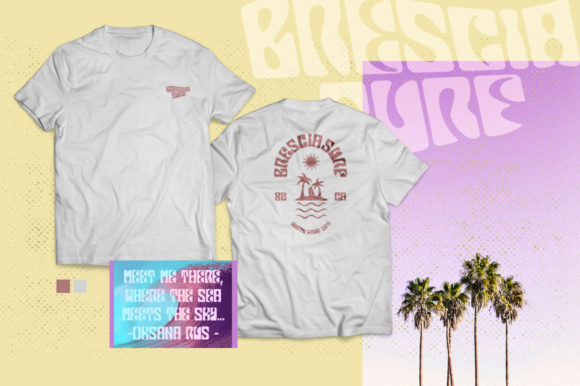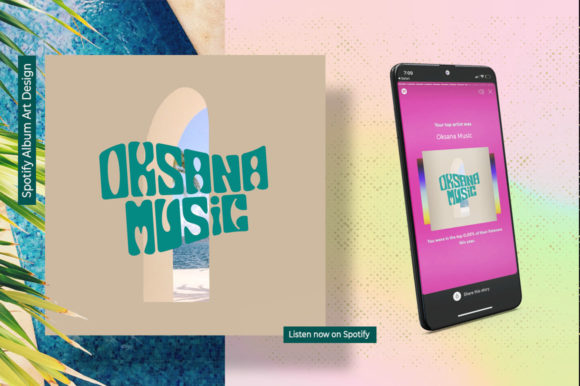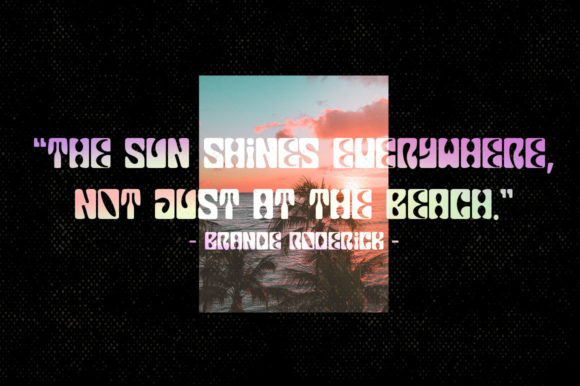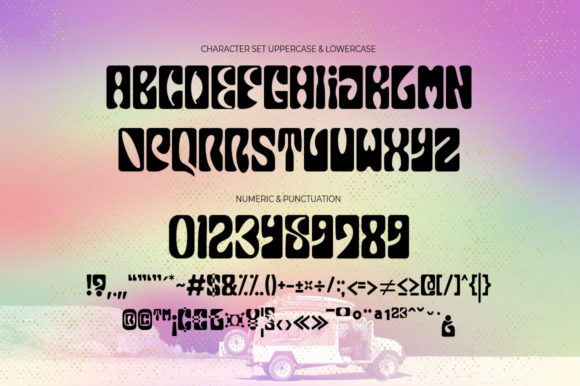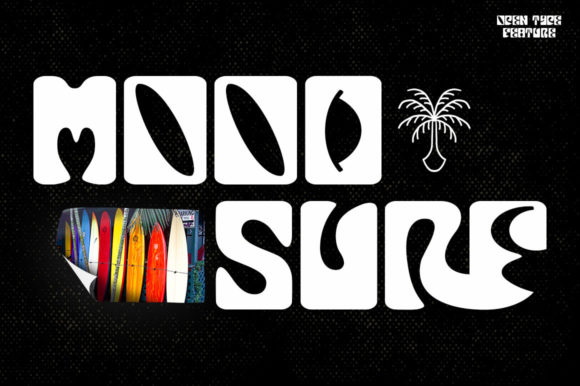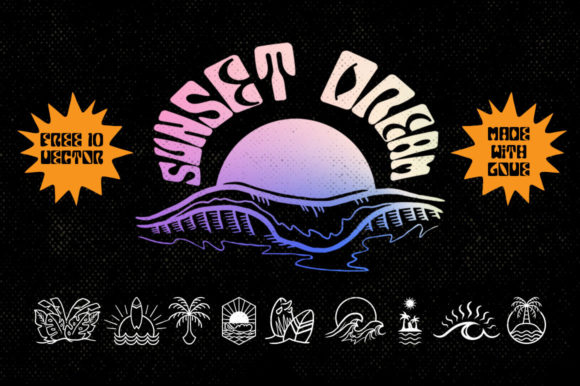
Brescia Font: Add a Touch of Whimsy to Your Designs
In the world of typography, fonts play a crucial role in conveying the tone and personality of a design. If you’re looking for a font that can add a distinct touch to your creations, look no further than Brescia Font. This whimsical, uniquely designed display font is perfect for designers and crafters who want to make their work stand out.
What is Brescia Font?
Brescia Font is a display font that boasts a one-of-a-kind design. Its whimsical and playful aesthetic makes it an excellent choice for projects that require a touch of personality. Whether you’re working on a logo, branding materials, or marketing collateral, Brescia Font is sure to make a statement.
Key Features of Brescia Font
- Unique Design: Brescia Font features a distinctive design that sets it apart from other fonts. Its quirky and whimsical aesthetic makes it perfect for designers who want to add a touch of personality to their work.
- Display Font: Brescia Font is a display font, making it ideal for headlines, titles, and other display text. Its bold and eye-catching design ensures that it will grab attention and make a lasting impression.
- Versatile: Despite its unique design, Brescia Font is surprisingly versatile. It can be used for a wide range of projects, from logos and branding materials to marketing collateral and packaging.
Who is Brescia Font for?
Brescia Font is perfect for designers and crafters who want to add a touch of whimsy to their work. It’s ideal for:
- Graphic Designers: Graphic designers who want to create unique and eye-catching designs will love Brescia Font. Its bold and playful aesthetic makes it perfect for logos, branding materials, and marketing collateral.
- Crafters: Crafters who want to add a personal touch to their work will appreciate Brescia Font. Its whimsical design makes it perfect for handmade cards, gift tags, and other craft projects.
- Marketing Professionals: Marketing professionals who want to create attention-grabbing headlines and titles will find Brescia Font to be an excellent choice.
- Pair it with a neutral font: Brescia Font is bold and eye-catching, so it’s best to pair it with a neutral font that won’t compete with it. A simple sans-serif font or a classic serif font works well.
- Use it for headlines: Brescia Font is perfect for headlines and titles. Use it to grab attention and make a lasting impression.
- Experiment with colors: Brescia Font looks great in bold and bright colors. Experiment with different colors to find the one that works best for your design.
Brescia Font is a unique and whimsical display font that’s perfect for designers and crafters who want to add a touch of personality to their work. Its bold and eye-catching design makes it ideal for headlines, titles, and other display text. With its versatility and ease of use, Brescia Font is sure to become a favorite in your design arsenal.